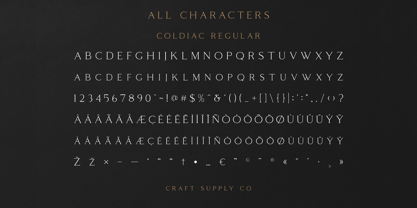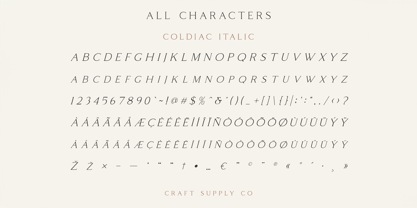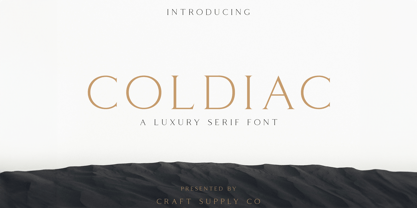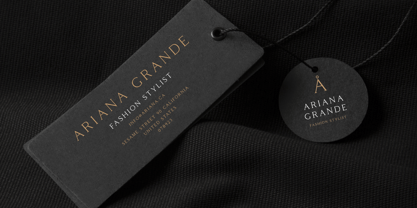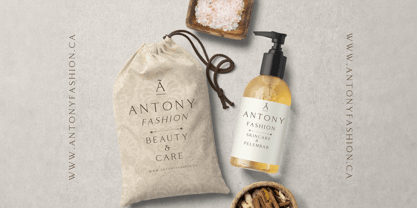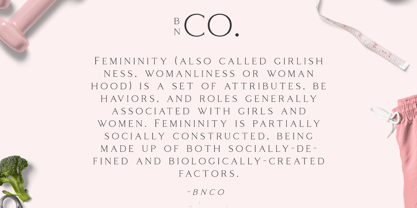
Coldiac
The Coldiac Font Family was designed by Trio Nazzar Saputra, Wahyu Hadi Yuana and published by Craft Supply Co. Coldiac contains 2 styles and family package options.
Coldiac – Luxury Serif Font is a modern serif font family whose design refers us to the style of transitional serifs. The distinctive features of Coldiac – Luxury Serif Font are the relatively low contrast of strokes, the slightly squarish shapes of round characters and the emphasized businesslike nature.
In the process of working on Coldiac – Luxury Serif Font, we have significantly revised the initial idea and expanded the areas of possible font application, while maintaining the original spirit of the project. Despite the large number of display details, the typeface looks great in a small point size, and also when it is used in large text arrays.
Coldiac – Luxury Serif Font has been crafted from scratch with a structural logic of its own: a fusion of pure geometry and optical balance. By combining a variety of styles Coldiac – Luxury Serif Font is suitable for Logo, greeting cards, quotes, posters, branding, name card, stationary, design title, blog header, art quote, typography
Coldiac – Luxury Serif Font also suitable for art, modern envelope lettering or book design, happening style like handdrawn design or watercolor design theme, craft design, any DIY project, book title, wedding font, pop vintage design, or any purpose to make our art/design project look pretty and trendy.